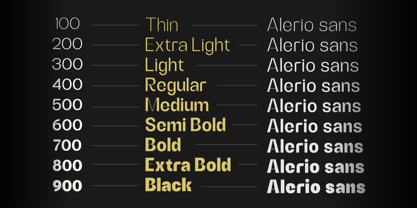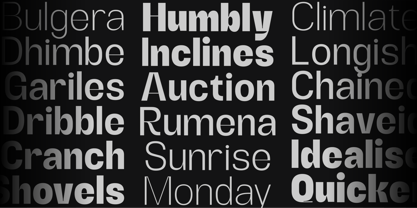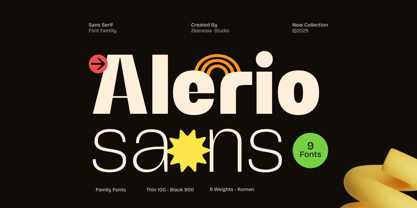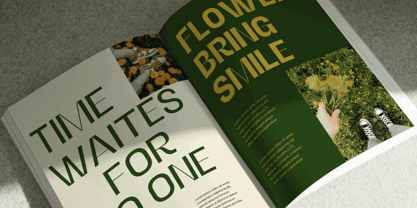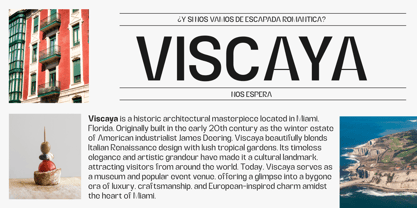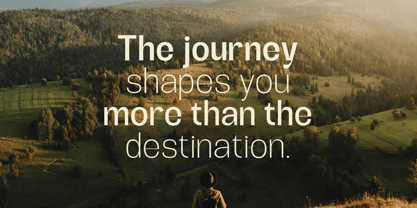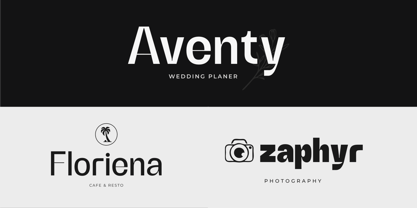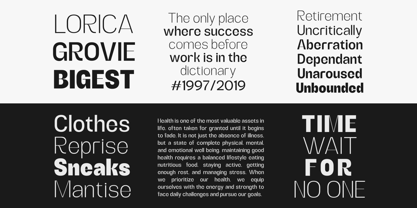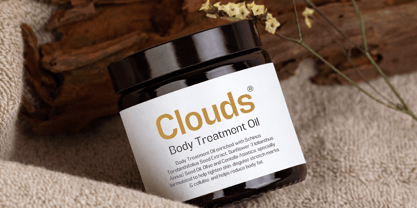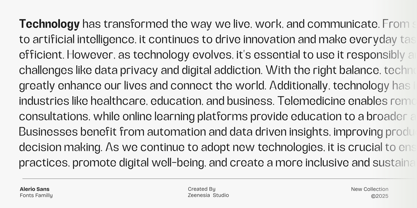
Alerio
by Zeenesia Studio
The Alerio Font Family was designed by Doni Purwoko and published by Zeenesia Studio. Alerio contains 9 styles and family package options.
Alerio is a refined Roman typeface that blends timeless elegance with contemporary versatility. Designed with precision and grace, Alerio comes in 9 meticulously crafted weights — from the delicate Thin (100) to the commanding Black (900) — making it a perfect choice for both editorial needs.
Its classic Roman structure offers high readability, while the range of weights gives designers full freedom to express tone and hierarchy. Whether you're working on luxurious packaging, elegant headlines, or sophisticated body text, Alerio delivers with style and confidence.
With its balanced proportions, subtle contrast, and smooth curves, Alerio is not just a typeface — it's a statement of style and refinement.